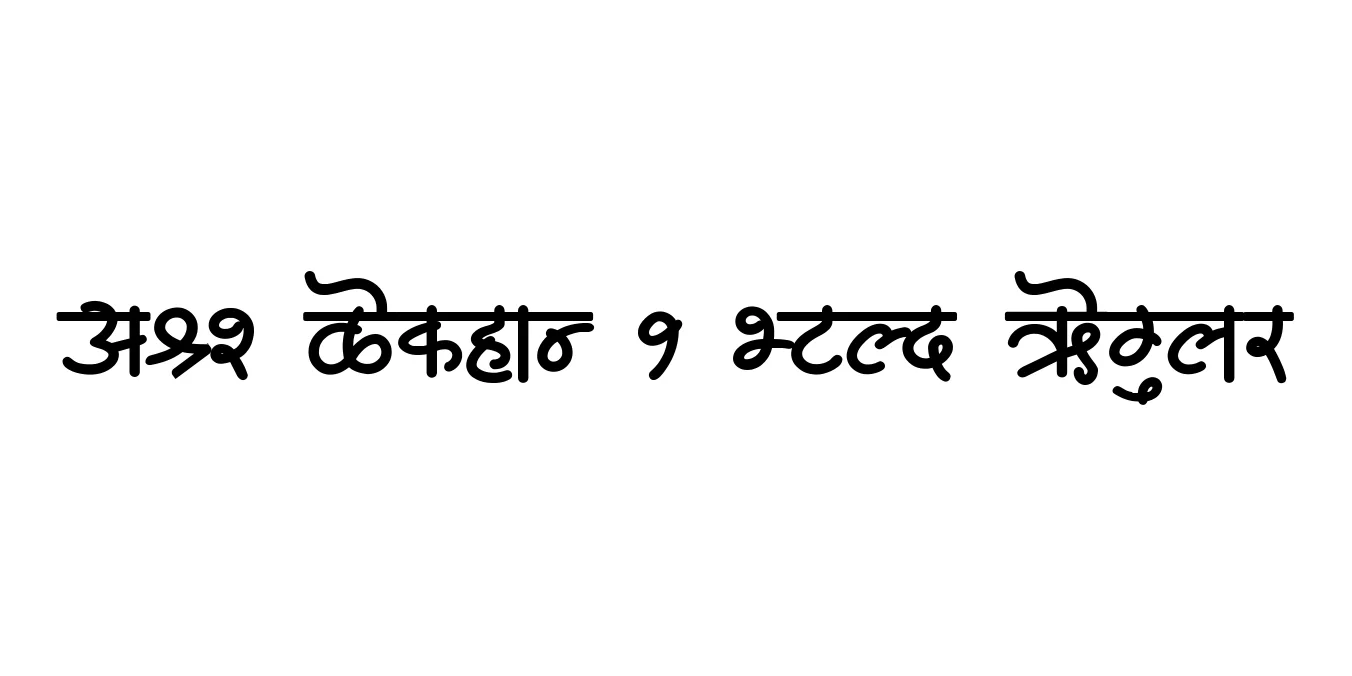
AMS Lekhan 1 Bold Regular
Designed by AMS Fonts
| Category | Calligraphy / Devanagari |
| Designer | AMS Fonts |
AMS Lekhan 1 Bold Regular is a premium calligraphic typeface designed primarily for the Devanagari script, widely used in Marathi and Hindi languages. This font is part of the prestigious AMS collection, known for its ability to blend traditional handwriting aesthetics with modern digital precision. The bold weight of the Lekhan 1 series offers a striking visual impact, characterized by its thick, fluid strokes that mimic the motion of a broad-nibbed calligraphy pen.
This typeface is highly sought after by graphic designers in India for its cultural resonance and artistic flair. It is commonly employed in high-stakes design projects such as wedding stationery, religious texts, and promotional banners where a sense of tradition and authority is required. By maintaining high legibility even with its decorative flourishes, it serves as a bridge between classic manuscript styles and contemporary graphic design needs.
AMS Lekhan 1 Bold Regular Best Uses
Ideal for crafting elegant and culturally rich marriage invitation cards.
Perfect for bold, eye-catching titles in regional Indian cinema branding.
Great for creating high-impact quotes and festival greetings in Hindi or Marathi.
Suitable for brands that want to convey a traditional yet powerful calligraphic identity.